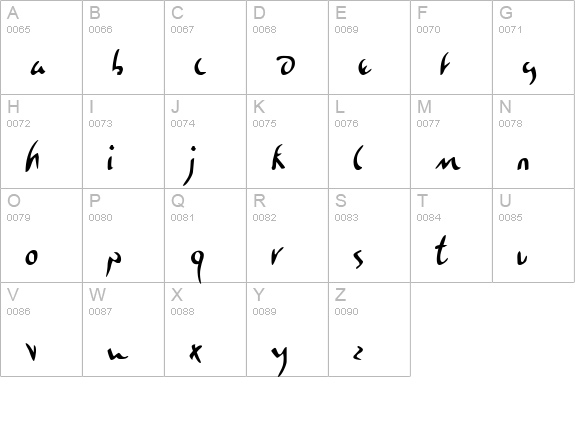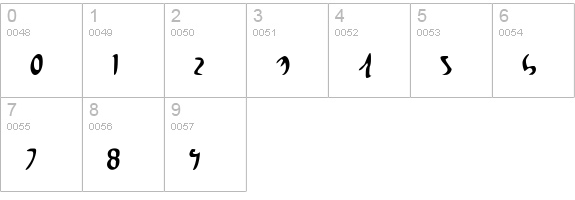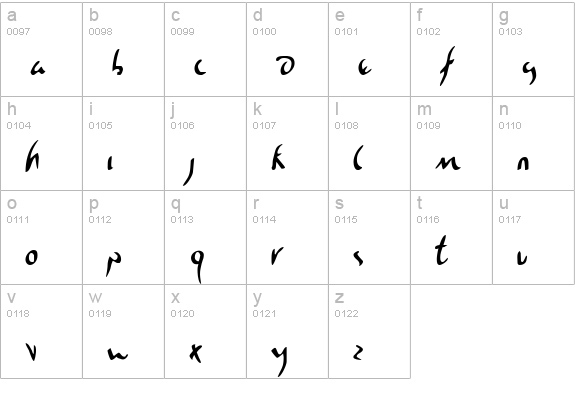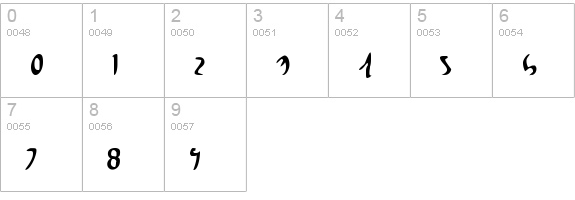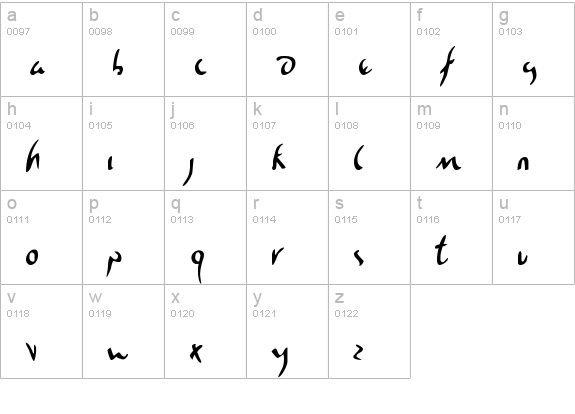
Eagleclaw Condensed is a distinctive, condensed-width variant in the Eagleclaw typeface family \xE2\x80\x94 well suited to design and typography projects.